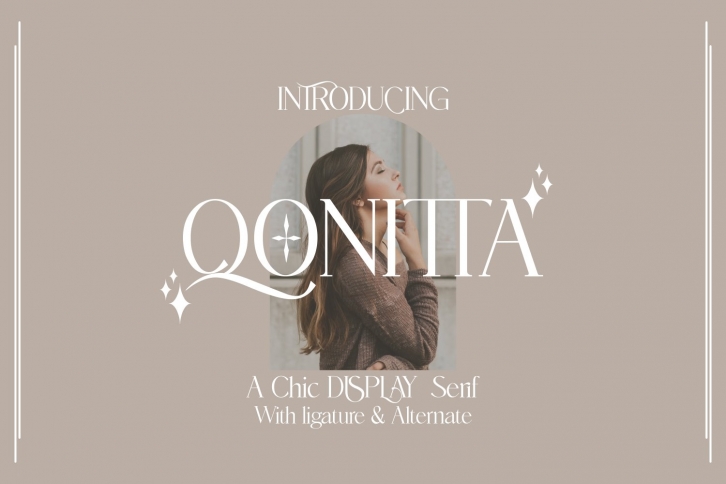
Qonitta is a beautiful font that was designed by zamjump. It's a great choice for designers and creatives who need such a font. It was released on August 1, 2022 and the file size is 14.9 MB. Qonitta may give a more youthful, expressive and casual look to your project. It is a very beautiful, refined, elegant, and high-quality font.